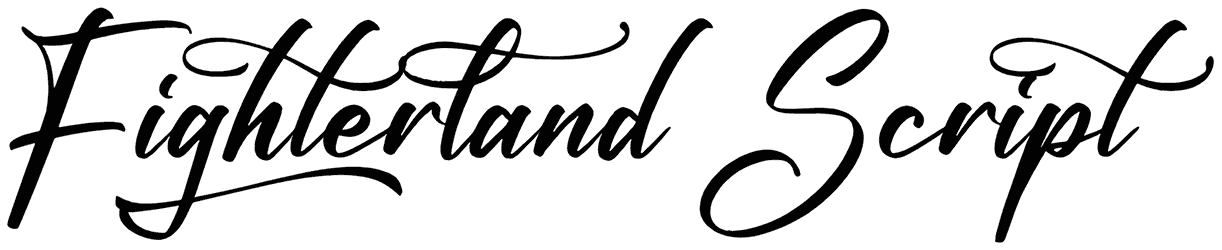
Fighterland Script Font
Start giving off all the animated and natural sense you are praising for. Make an experience of Fighterland Script, the fresh calligraphy font originated from Resource Boy library, to reinforce and expand the modern, decorative gratitude in that area via its different styles.